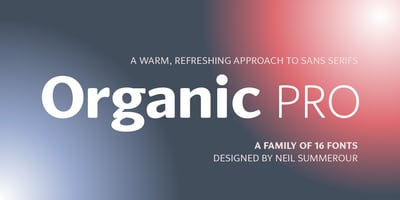
Organic Pro Font Family was designed by Neil Summerour and published by Positype. Organic Pro contains 16 styles and family package options. When I released the original Organic in 2009, I was satisfied with it. It was what was possible from me and the technology at the time. The Organic Pro of 2021 takes those original desires of delivering a highly legible and friendly sans serif, and doubles down on those notions, while exploring what further infusing warmth in a highly structured sans serif can really do for a client.Free of distracting and potentially dating visual traits and cues that could be seen as endemic of a specific time period or ‘type trend’, Organic Pro is its own person—take it or leave it. Inviting warmth, assured reliability, and a head nod of confidence is what you walk away with—a stark contrast to the cold, impersonal geometrics and grotesques proliferating the design annuals currently. Releasing this typeface now, completely redrawing the masters, as well as expanding the weight and language options, should be seen as a laid back challenge that we need to do less with type, let it communicate confidently and warmly when it needs to, and stop forcing one-size-fits-all type trends on everyone.